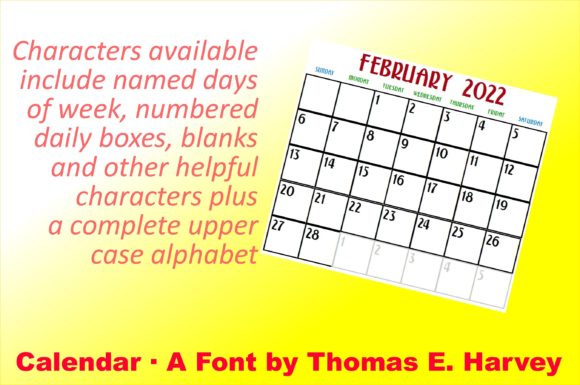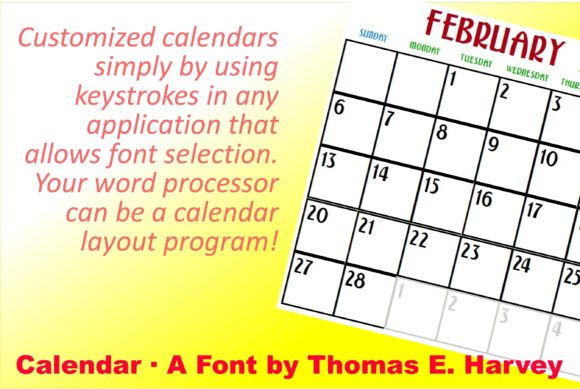
Calendar Font
About Calendar Font
Calendar is an incredibly innovative and versatile font that allows you to create consistent and visually appealing calendar pages effortlessly. With Calendar, you no longer need to rely on complex graphics layout software to design calendars. By simply specifying the font, you can generate beautiful and professional calendar pages with ease.
The unique design of Calendar makes it a powerful tool for creating calendars for any purpose. Whether you need a calendar for personal use, business planning, or promotional materials, this font provides a convenient solution. With Calendar, you can generate calendars month after month, ensuring a consistent and cohesive look throughout the year.
Creating calendars with Calendar is simple and straightforward. Each character in the font represents a specific day, date, or month, allowing you to arrange them in a grid format to form a complete calendar. You can customize the layout, font size, and color to suit your preferences and design needs.
Whether you want a minimalist and modern calendar design or a more decorative and artistic layout, Calendar gives you the flexibility to create calendars that match your vision. The font provides a range of characters and symbols to represent days of the week, dates, and months, allowing you to customize the appearance of your calendar pages.
One of the significant advantages of using Calendar is its compatibility with various software applications that can specify fonts. As long as your software allows you to select a font, you can utilize Calendar to design calendars effortlessly. This means you can use popular design software, word processors, or even online design tools to create stunning calendar layouts.
The versatility of Calendar extends beyond its usage as a calendar maker. You can also incorporate Calendar into other design projects, such as posters, flyers, or promotional materials, to add a unique and distinctive touch. The consistent and recognizable calendar elements can serve as decorative elements or functional components in your designs.
With Calendar, you have the power to create visually striking and professional calendar pages without the need for advanced graphics software. The font’s innovative approach to calendar design opens up new possibilities and streamlines the process of calendar creation.
So, whether you’re designing calendars for personal use, business purposes, or creative projects, Calendar is a valuable tool that empowers you to create consistent and visually appealing calendar pages with ease. Explore the endless possibilities of Calendar and make calendars that stand out!